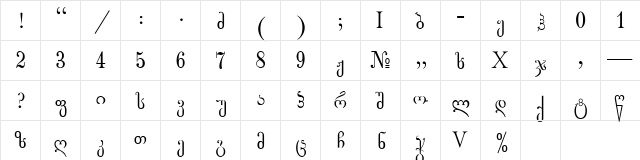
Gogebashvili-ITV Regular
Design Context for Gogebashvili-ITV Typeface
Gogebashvili-ITV is a composed and adaptable typeface that performs quietly and consistently across a wide range of design contexts.